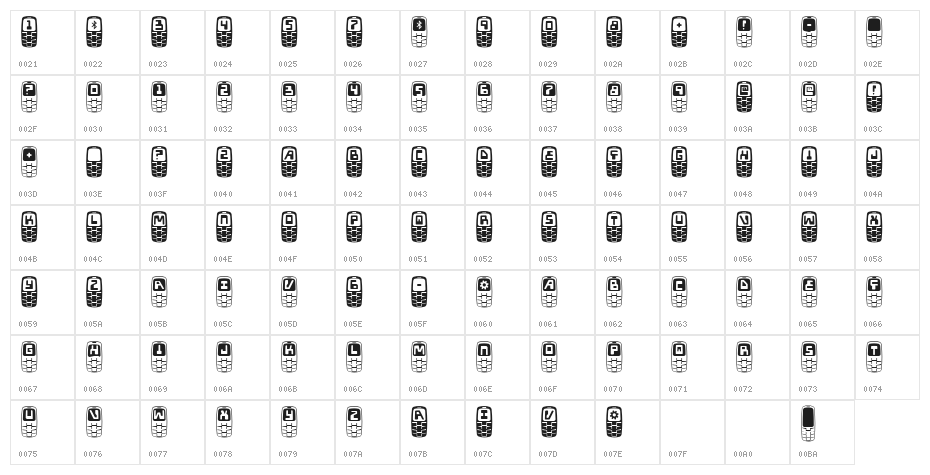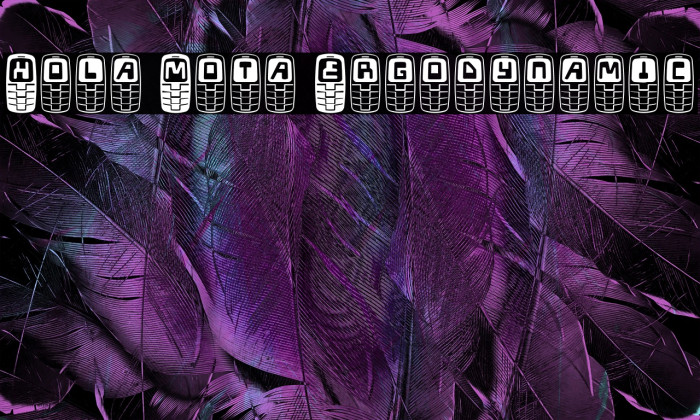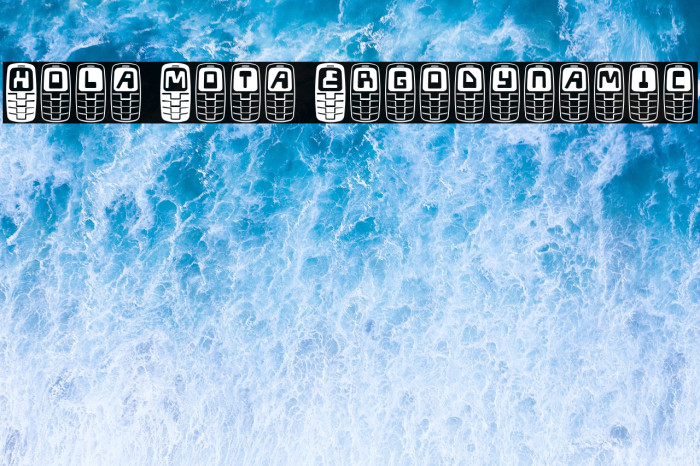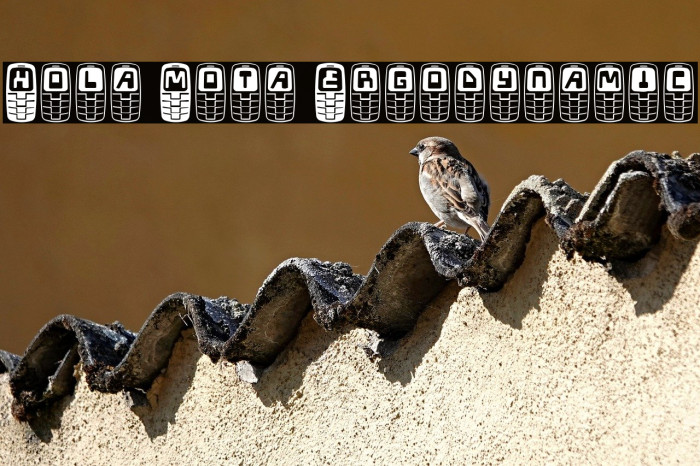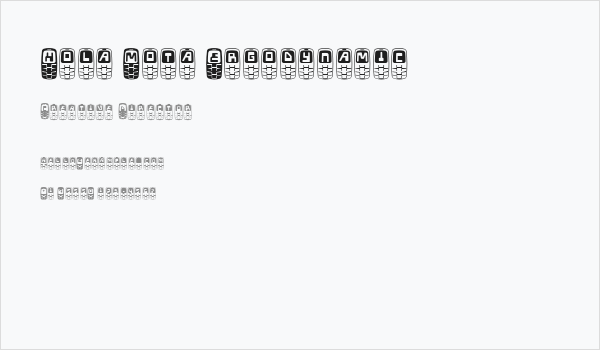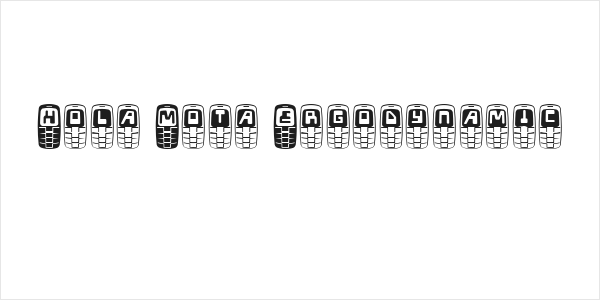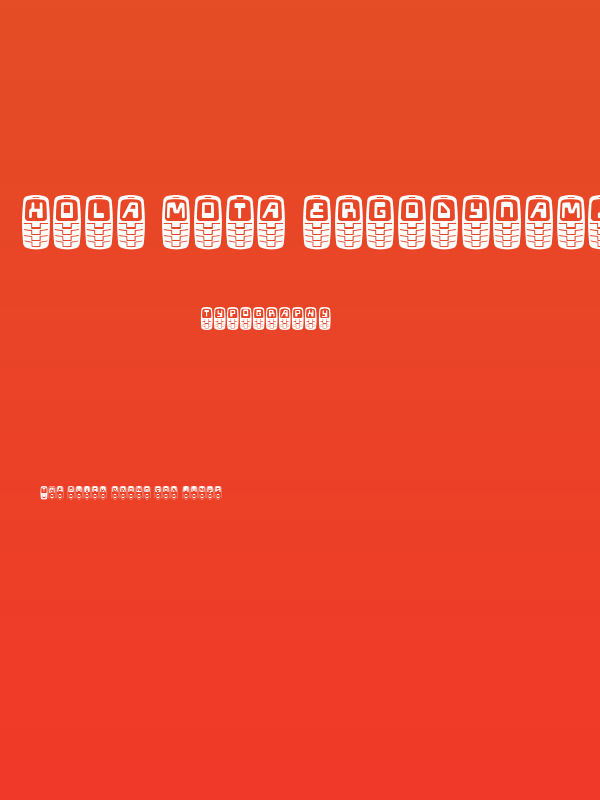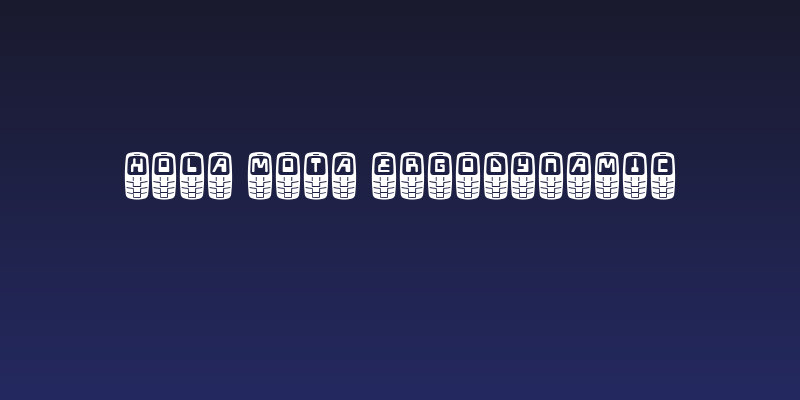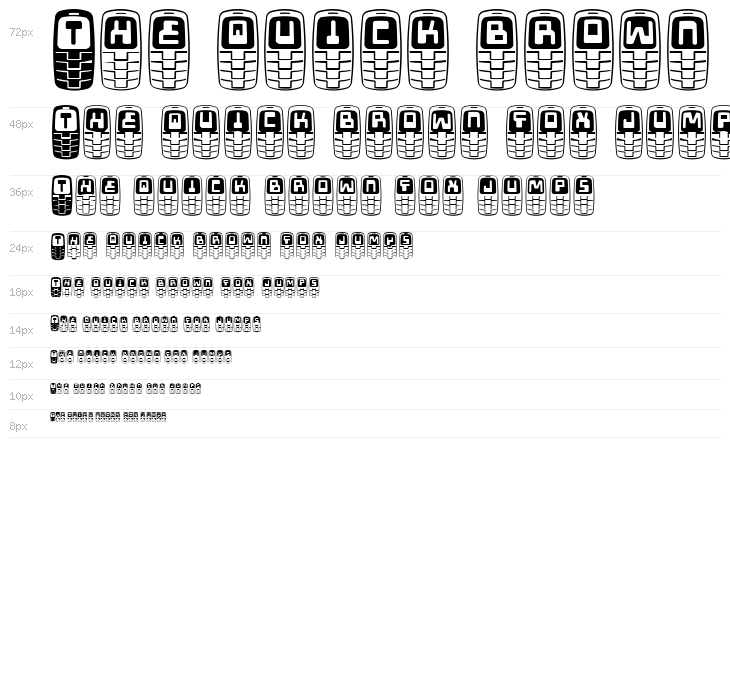
Hola Mota Ergodynamic Font
Hola Mota Ergodynamic Description
This font features a unique, futuristic design with characters enclosed in a rounded rectangular shape, reminiscent of old mobile phone keypads. Each letter and number is bold and blocky, with a consistent thickness throughout, creating a strong visual impact. The characters are evenly spaced within their containers, providing a uniform appearance. The style is distinctly modern and tech-inspired, making it suitable for projects that require a digital or retro-futuristic aesthetic. The font's playful yet structured design makes it versatile for various creative applications.
| Use Case | Logos, Posters, Digital Art |
| Proposed Projects | Ideal for tech-themed posters, video game graphics, digital art projects, and retro-futuristic branding. |